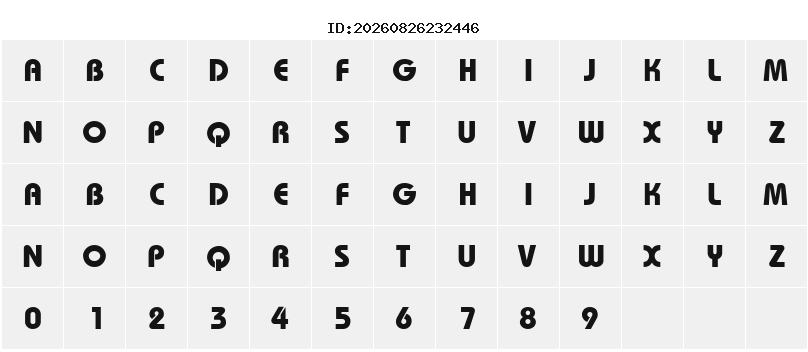
• Font Name: .VnBahamasBH
• Font ID: FontMonger:.VnBahamasBH Bold
• Full Font Name: .VnBahamasBH Bold
• Version: 1.0 Thu Jul 08 11:27:51 1993
• PostScript Name: VnBahamasBHBold
• Character Count: 213
• Copyright: Generated by Fontographer 3.5
About .VnBahamasBH.ttf
.VnBahamasBH.ttf is a modern, elegant sans-serif font designed for ultimate readability and visual harmony. Perfect for branding, headlines, web design, and print materials.